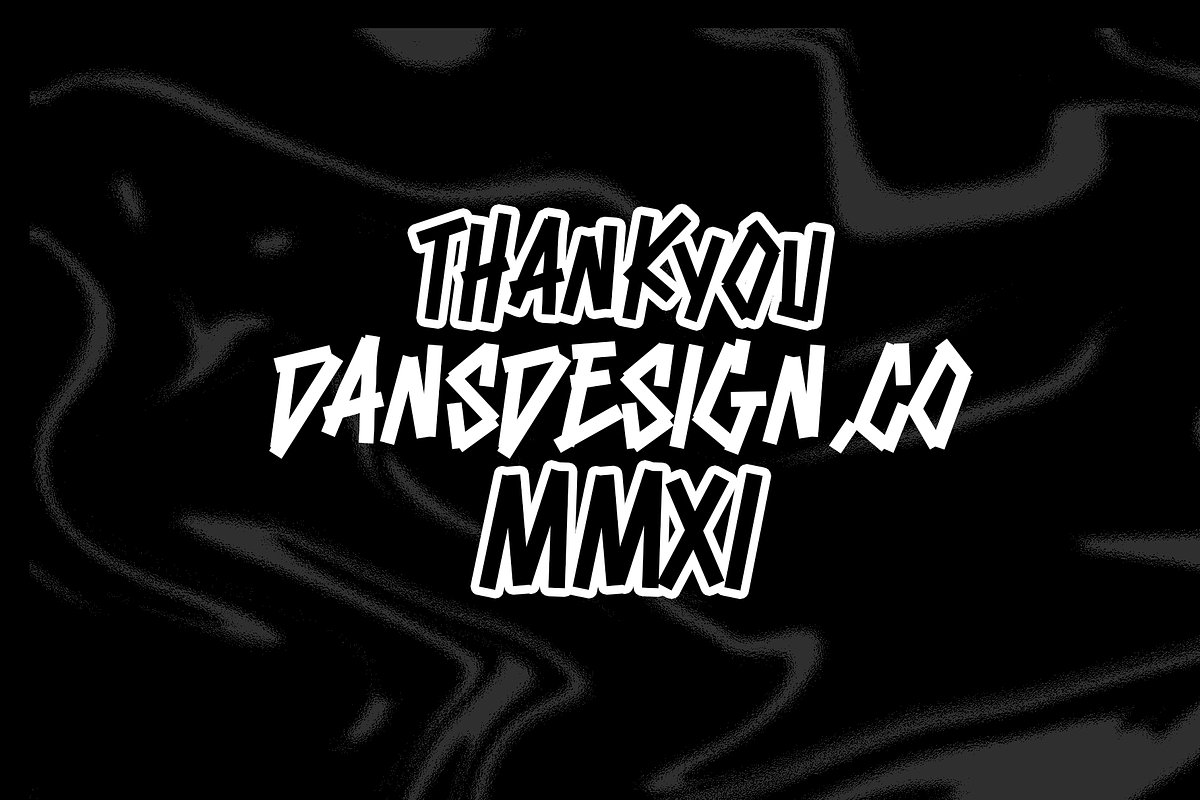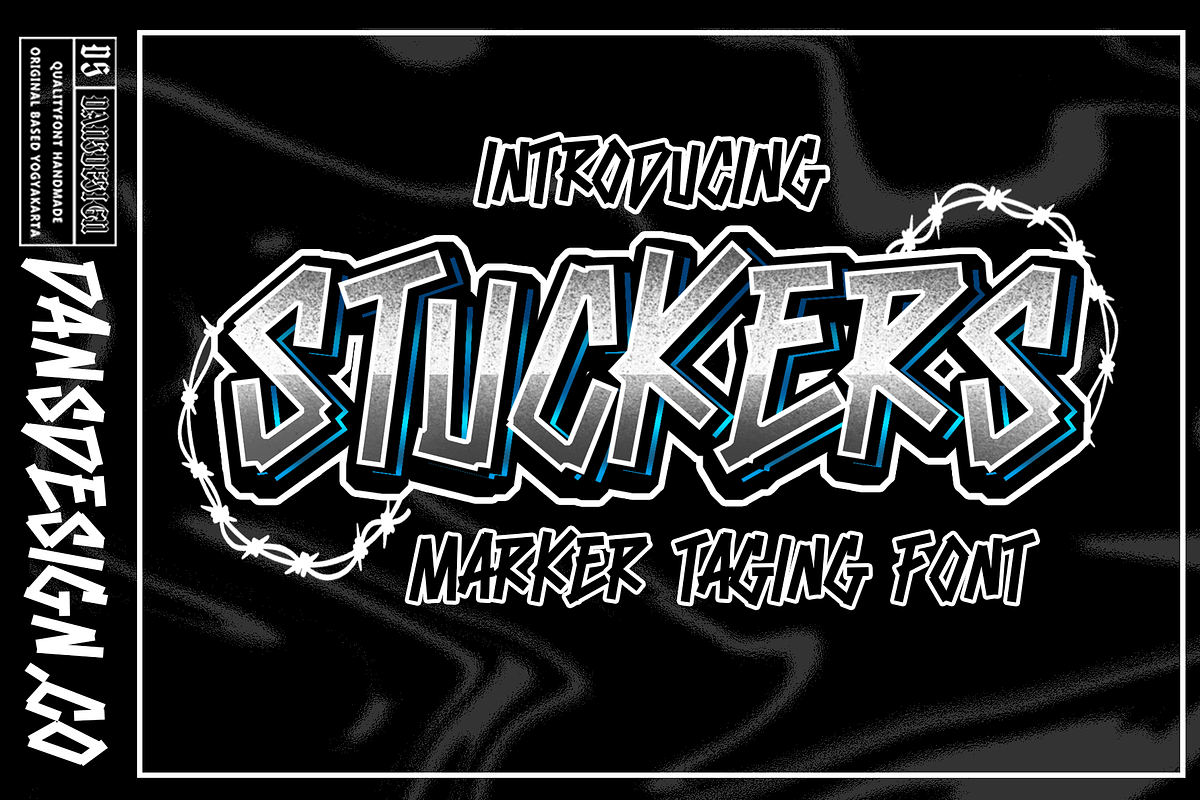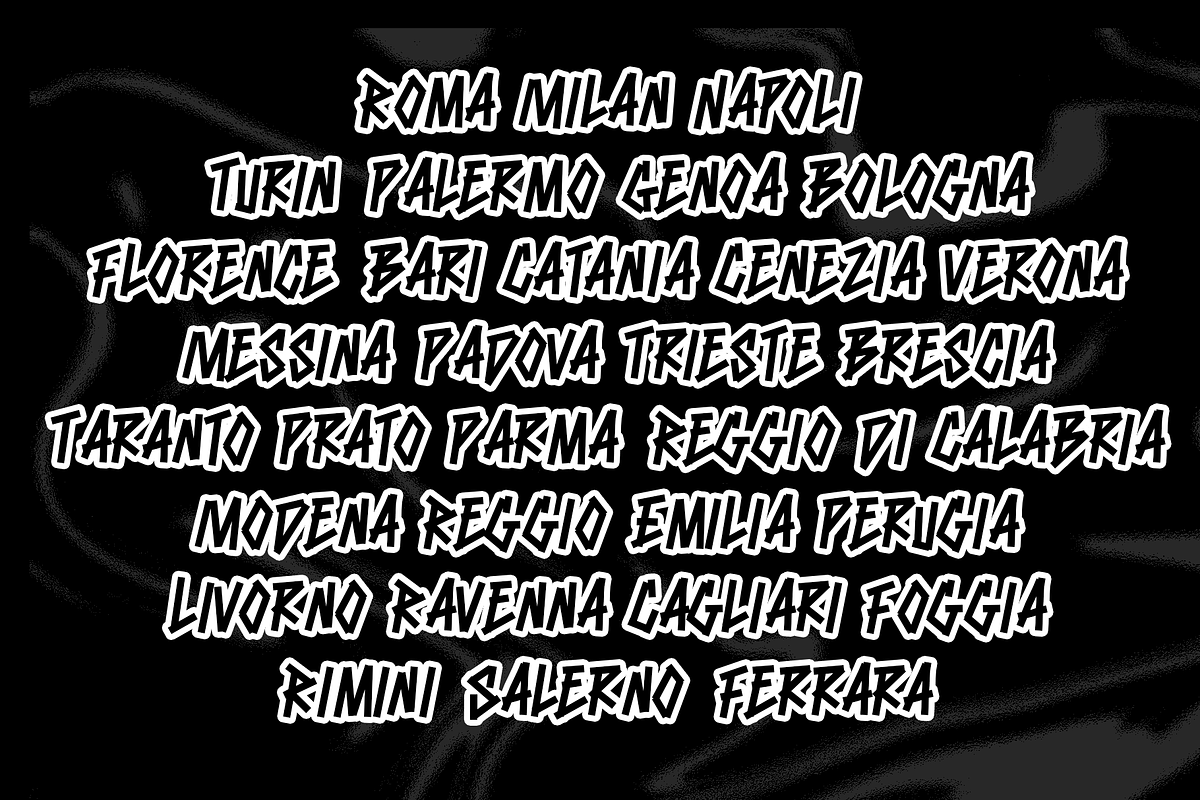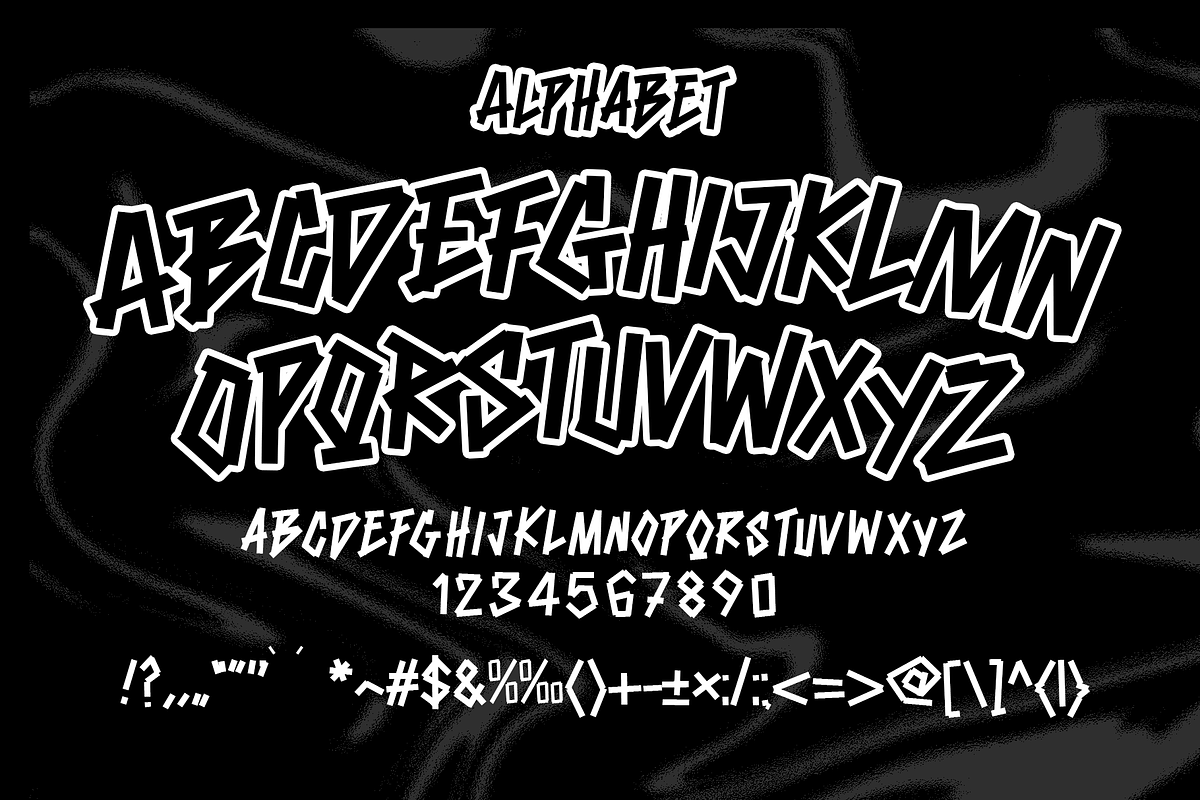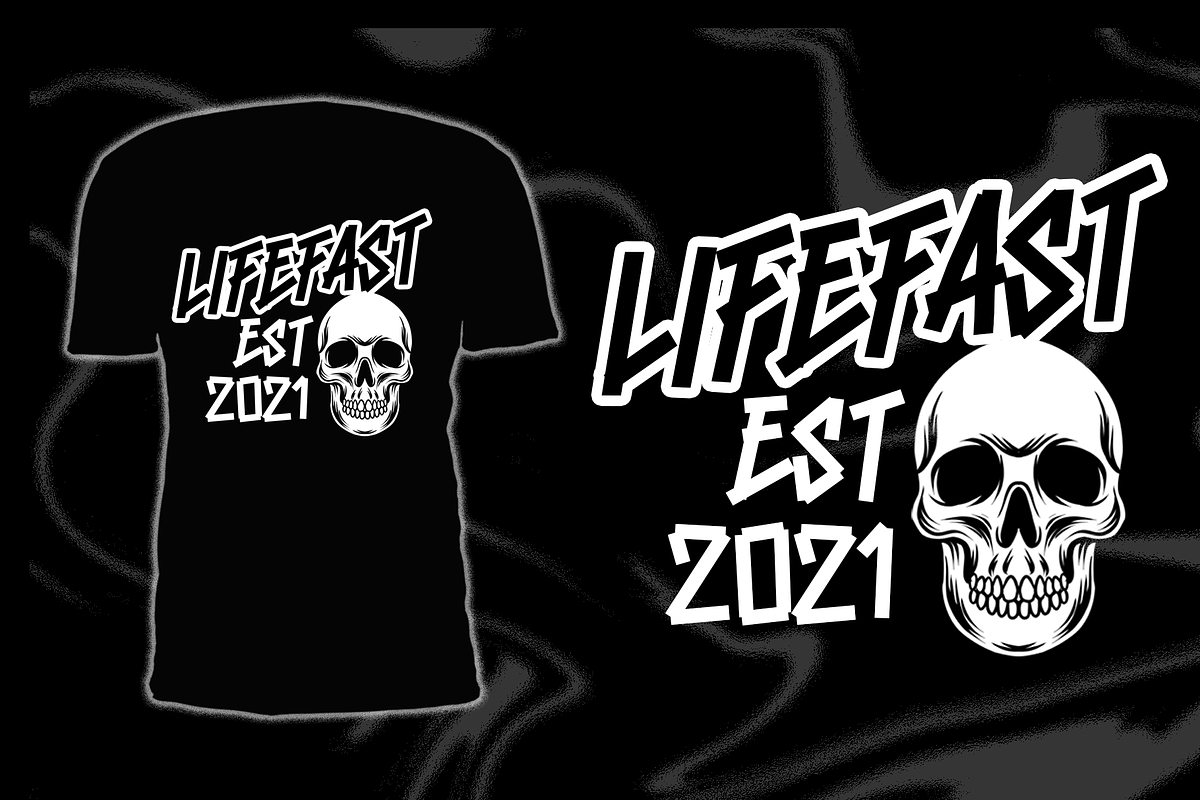
STUCKERS
Dansdesign Proudly present our new product STUCKERS This font is made with references to various tagig art that I combine and design with my style.
STUCKERS are great and usefull for product logo, poster title, headline, packaging, badge, wedding card logo, clothing brand logo,Vintage design and much more